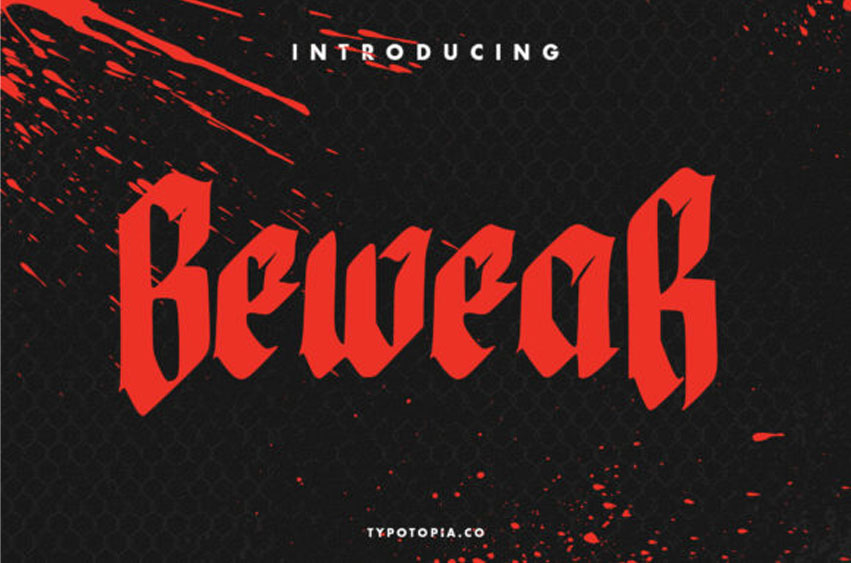
Bewear Font
Bewear Font is a simple and authentic blackletter font.
It has strong letters and it will most certainly add a dramatic touch to your designs.